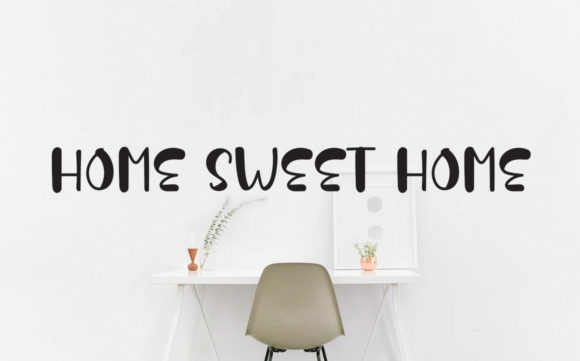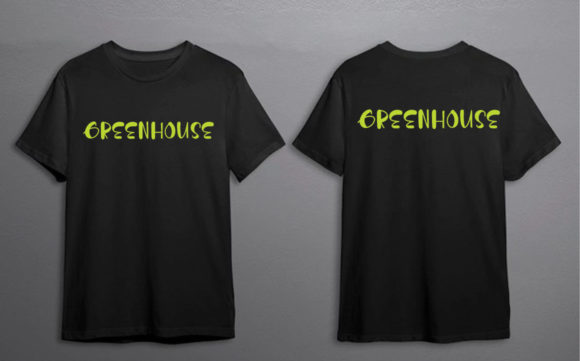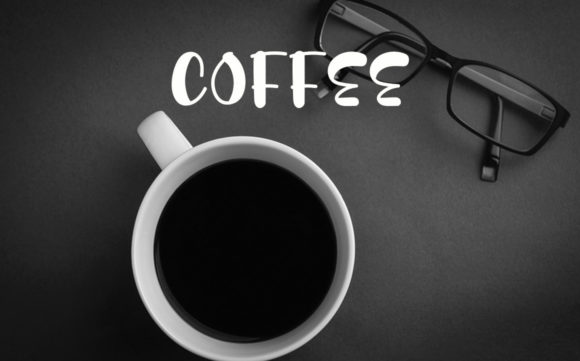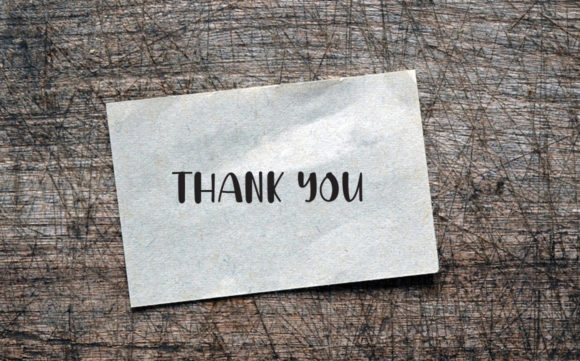
Greenhouse Font
About Greenhouse Font
Greenhouse is a chic and modern looking handwritten font. No matter the topic, this font will be an incredible asset to your fonts’ library, as it has the potential to elevate any creation.